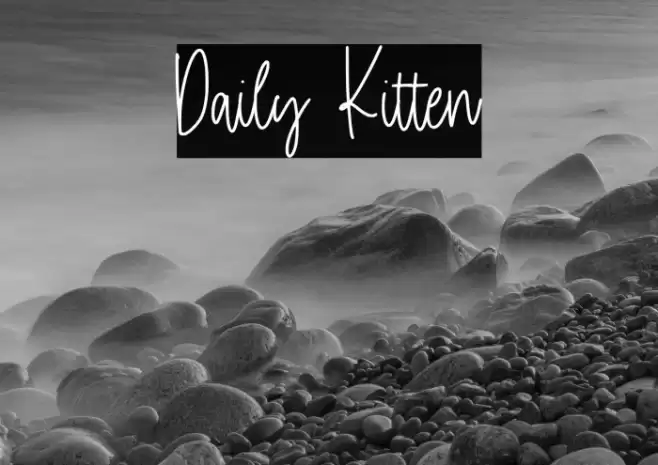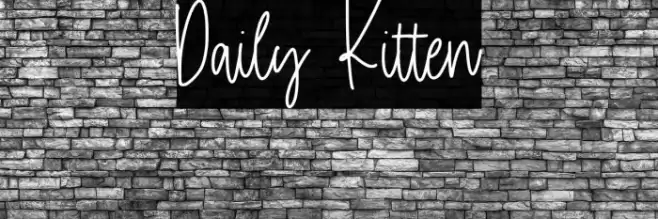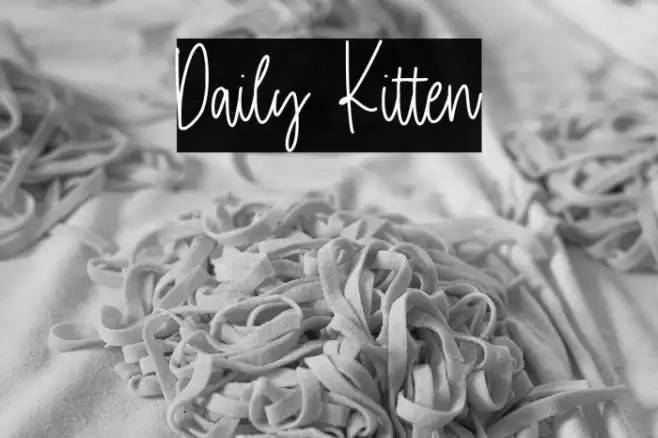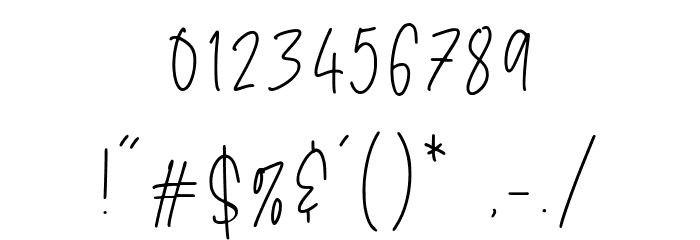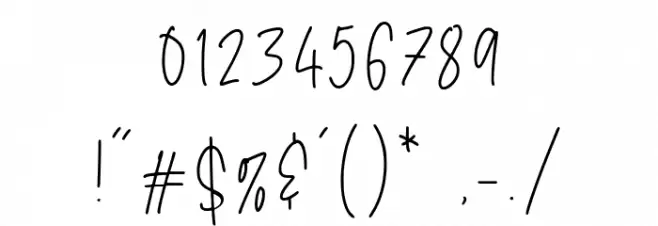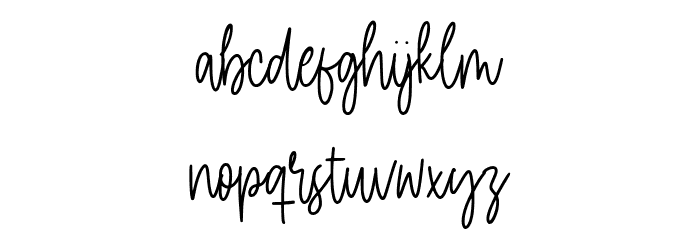
Daily Kitten Font
Daily Kitten Description
This font features a playful and casual handwritten style, characterized by its flowing and slightly irregular strokes. The uppercase letters are tall and narrow, with a whimsical flair that adds personality. The lowercase letters maintain a consistent style, with smooth curves and a relaxed appearance. Numbers are clear and easy to read, complementing the overall informal aesthetic. The special characters blend seamlessly with the alphabet, maintaining the same handwritten charm. This font is perfect for projects that require a personal touch, such as invitations, greeting cards, or social media graphics.
A playful, handwritten font with a casual and whimsical style from Uncategorized fonts.
- Proposed Projects: Ideal for invitations, greeting cards, social media graphics, and personal branding.
- Overall Style: Casual
- Use Case: Headlines, Logos, Invitations